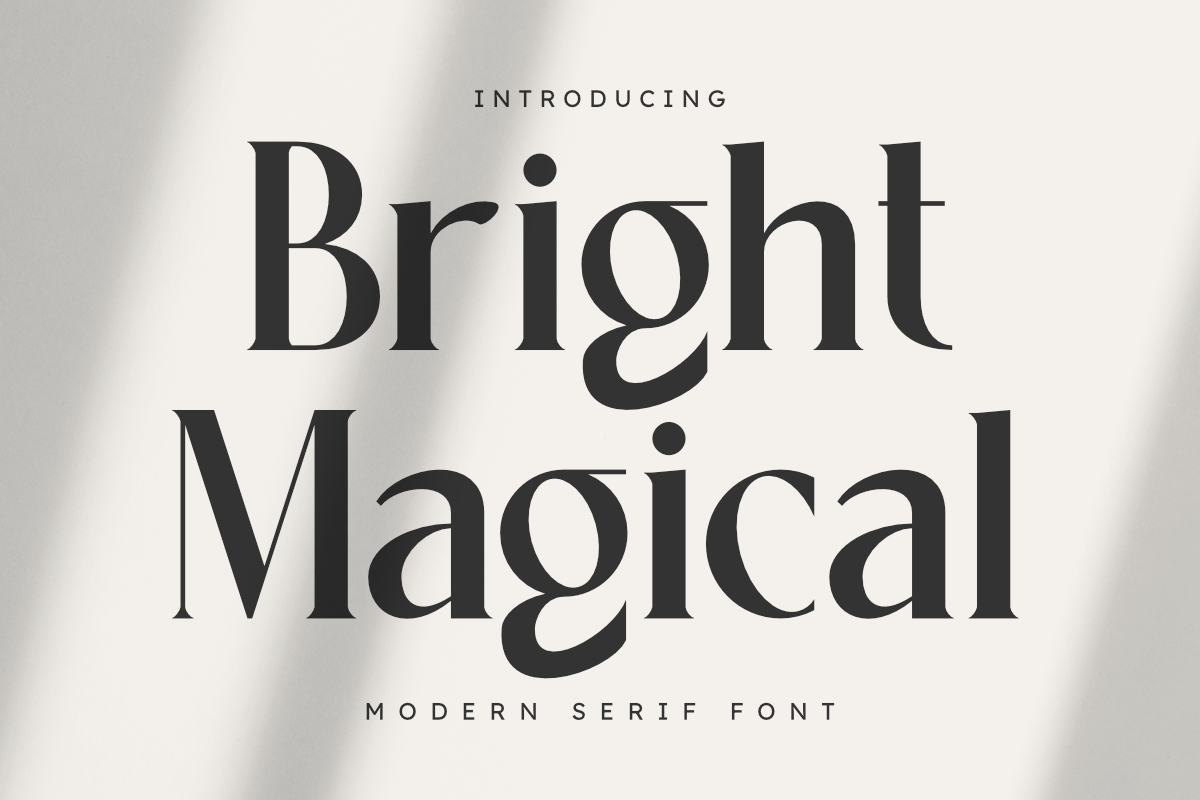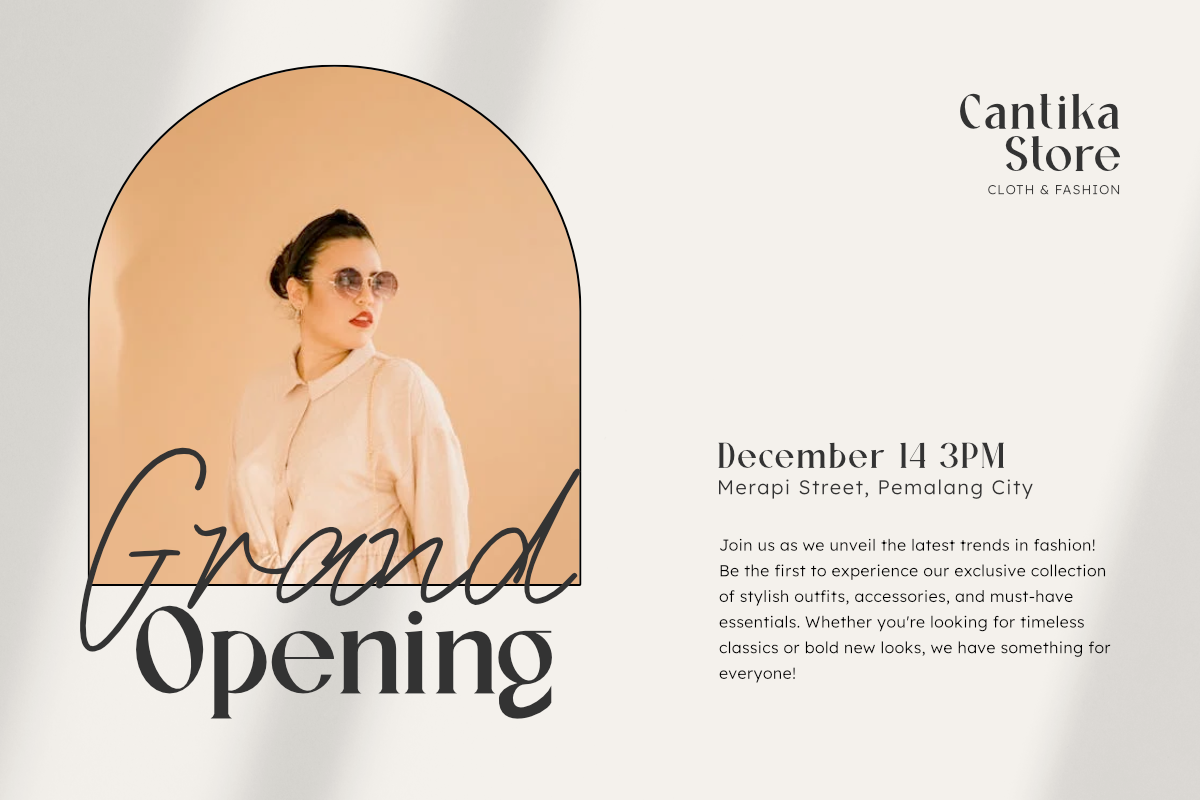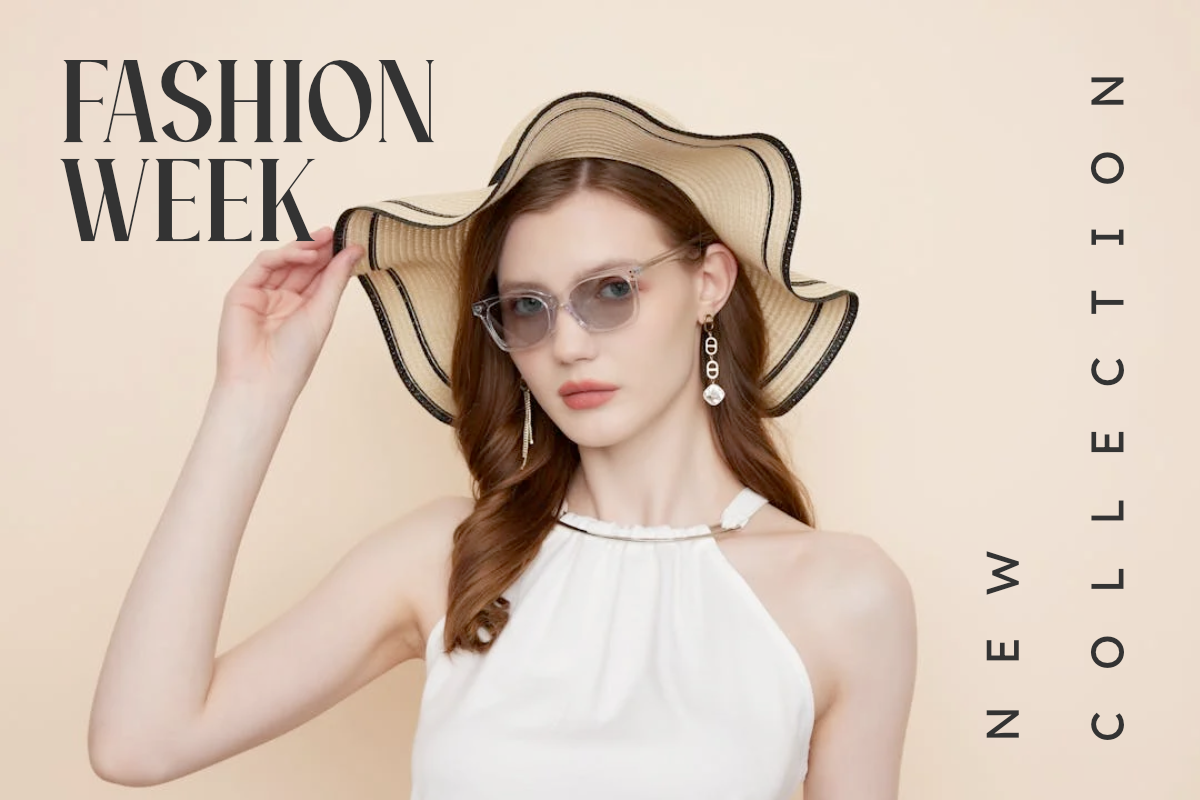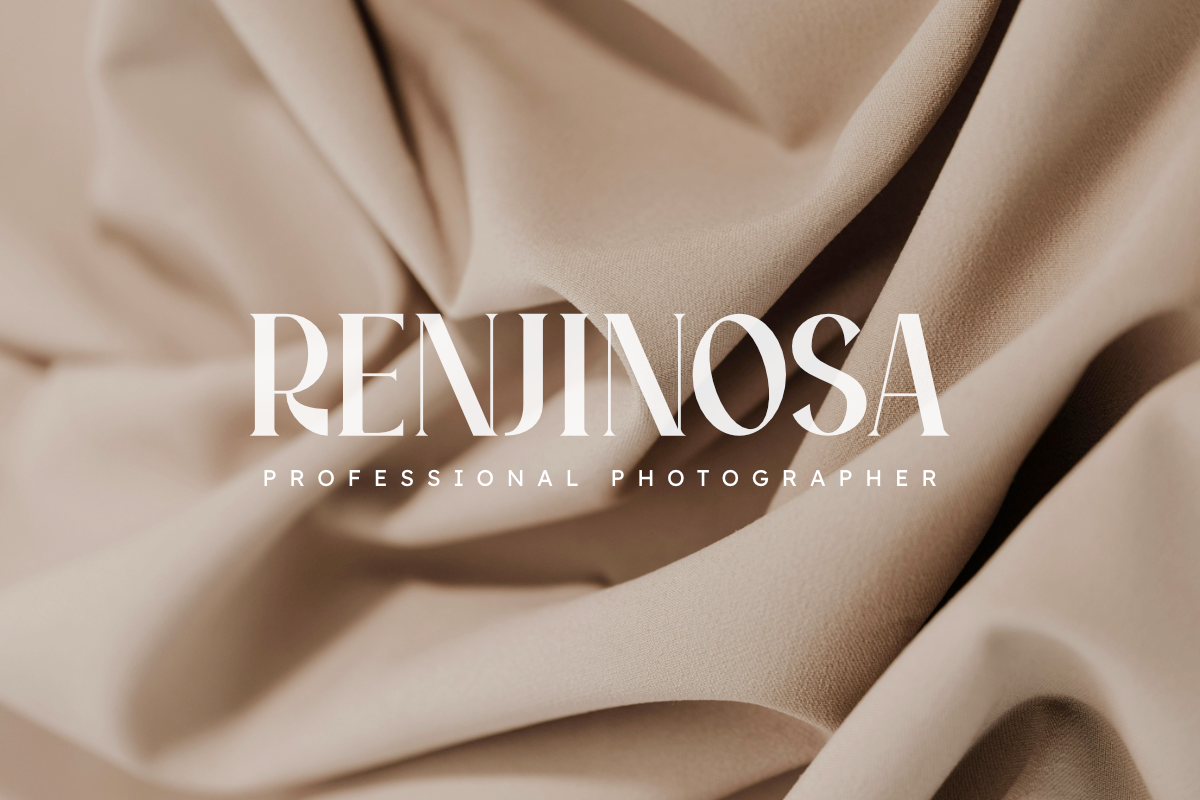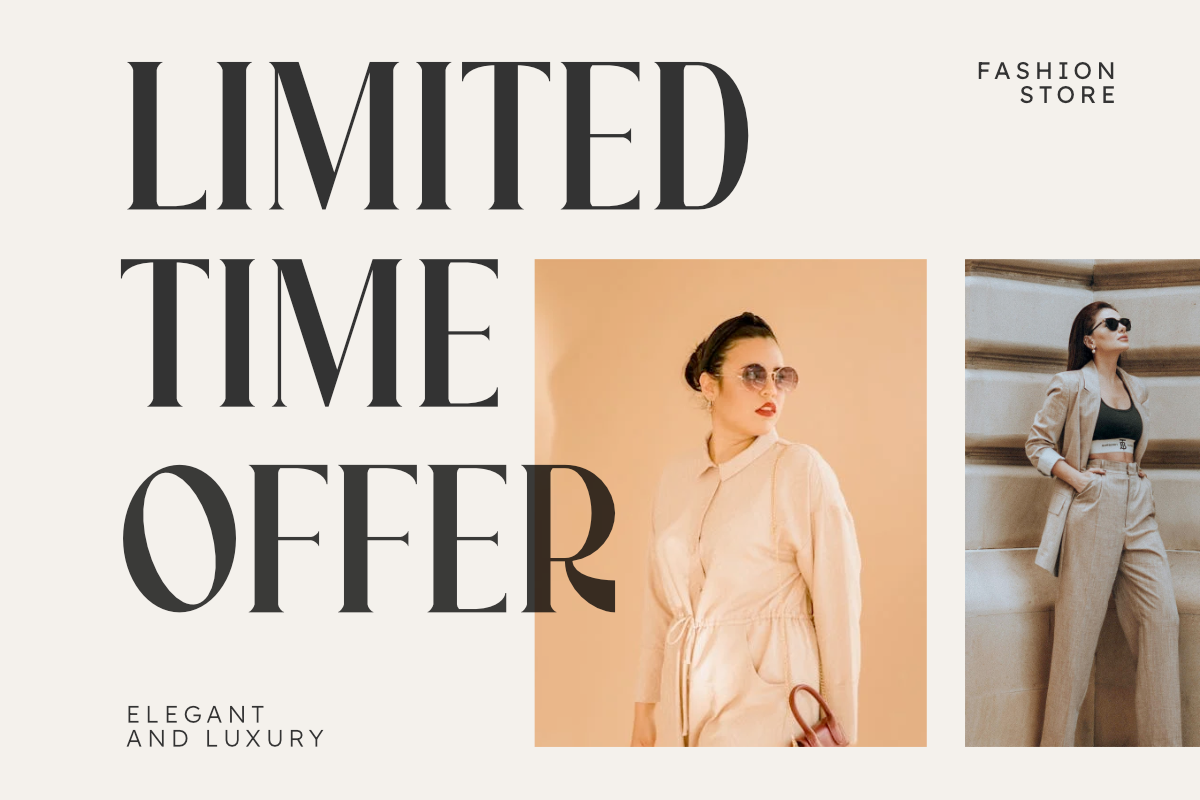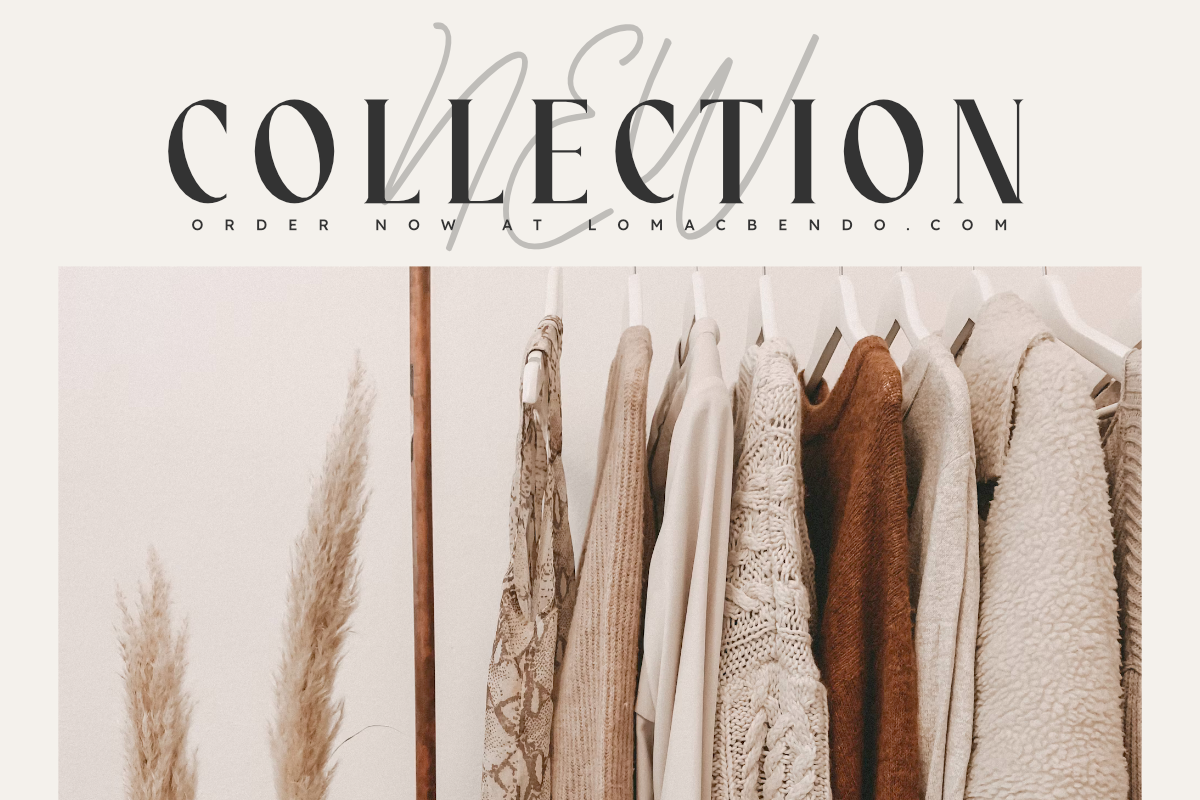
Bright Magical Font
Bright Magical is a modern serif font that exudes elegance and sophistication with every stroke. Perfect for upscale branding, luxury fashion editorials, or stylish event invitations, this font’s clean lines and subtle curves bring a touch of refinement to any design.
Its professional yet captivating style makes it versatile for both headlines and body text in high-end layouts—whether for fashion labels, editorial spreads, or artistic photography portfolios. With a contemporary edge and timeless charm, Bright Magical speaks to a modern audience that values minimalist, impactful typography. Add it to your font library for designs that demand elegance and presence.